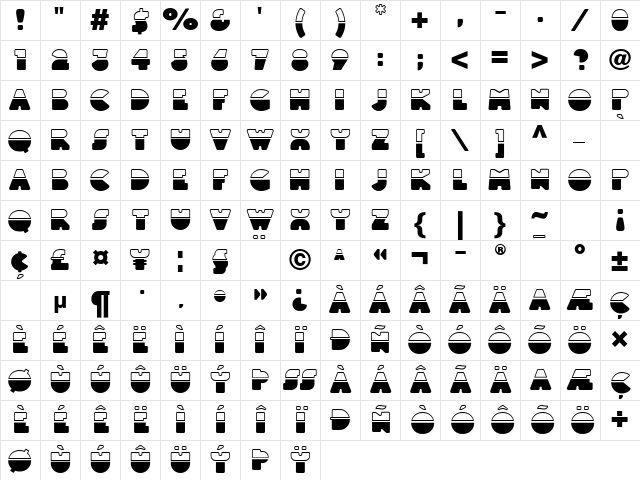
Complete LTBlackWhite Black glyph index. Displaying only characters natively supported by LTBlackWhite Black font.
LTBlackWhite is a composed and adaptable typeface that performs quietly and consistently across a wide range of design contexts.